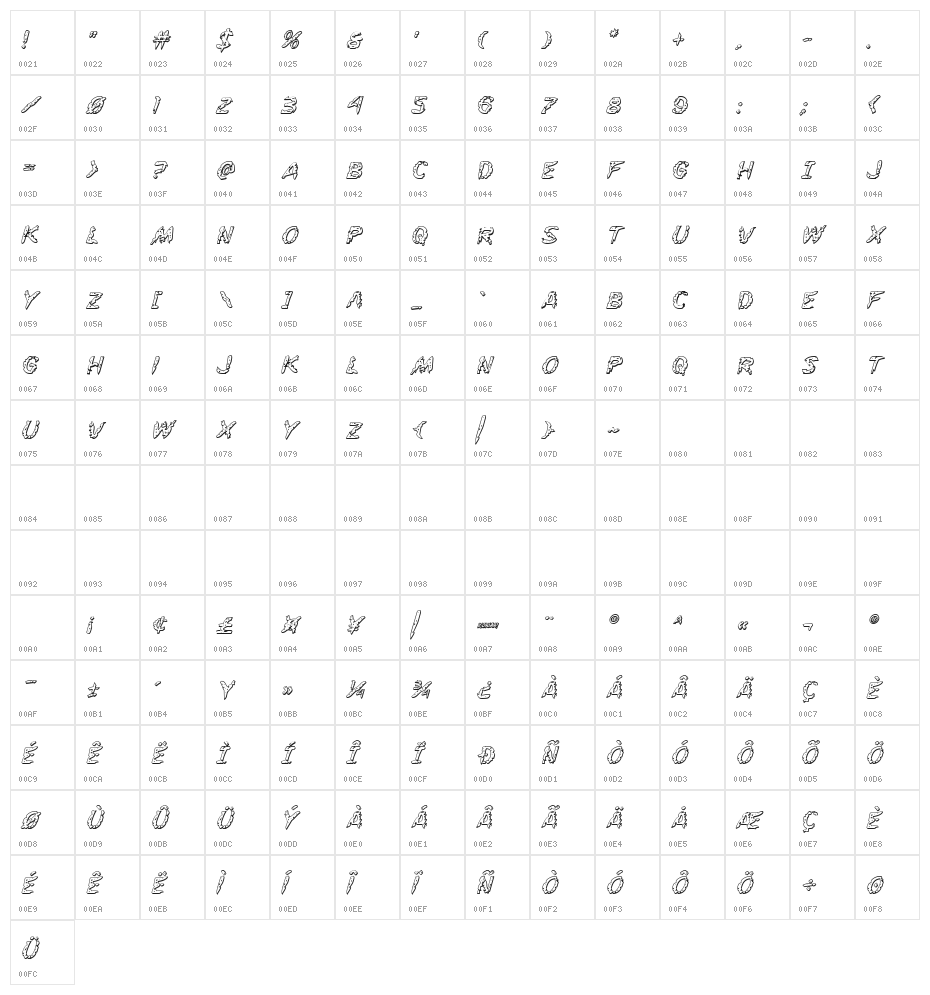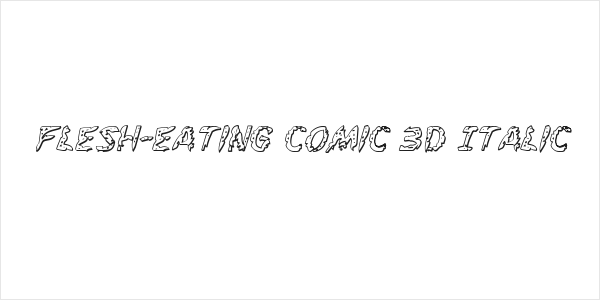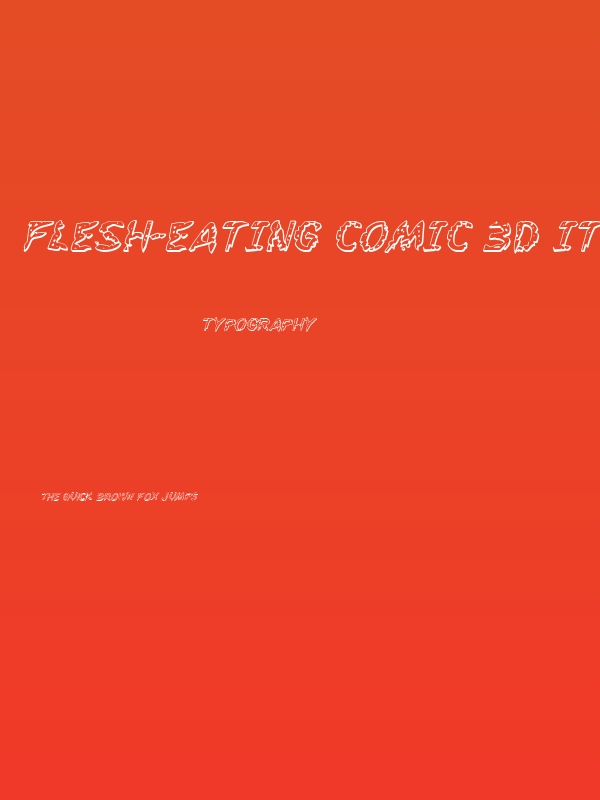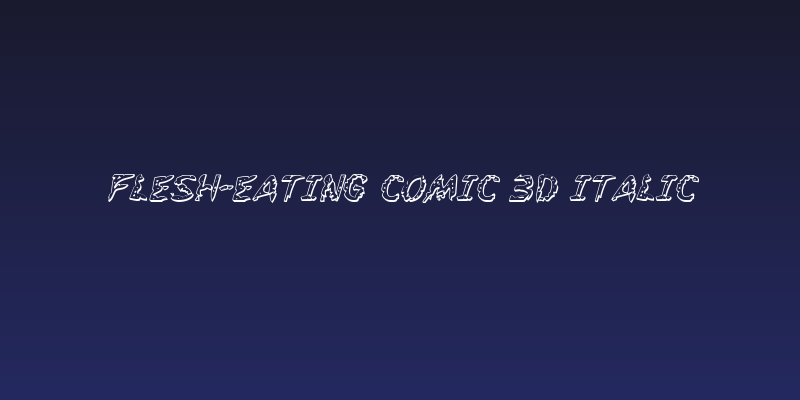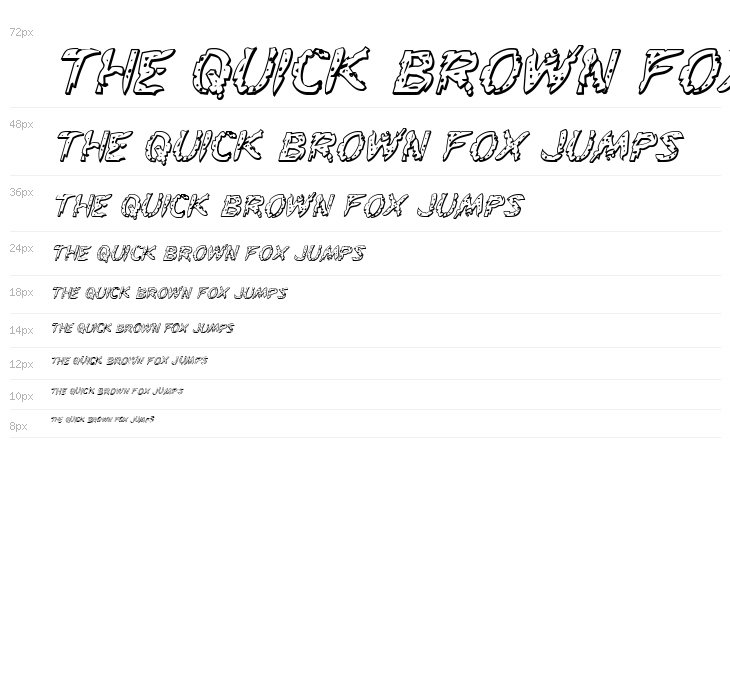
Flesh-Eating Comic 3D Italic Font
Flesh-Eating Comic 3D Italic Description
This font features a bold, comic-inspired style with a 3D effect, giving the impression of depth and movement. The characters appear as if they are being eaten away, with jagged edges and irregular shapes that add a sense of chaos and energy. The italic slant enhances the dynamic feel, making it suitable for attention-grabbing designs. The uppercase and lowercase letters maintain consistency in style, while the numbers and special characters follow the same theme, ensuring a cohesive look across all text elements. The font's unique appearance makes it ideal for projects that require a playful yet edgy aesthetic.
| Proposed Projects | Perfect for comic book covers, Halloween-themed designs, video game titles, and edgy posters. |